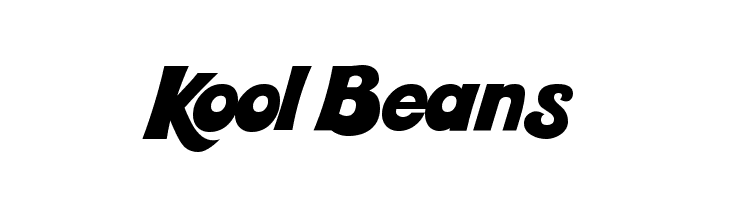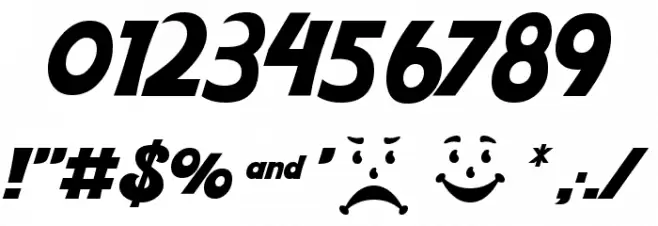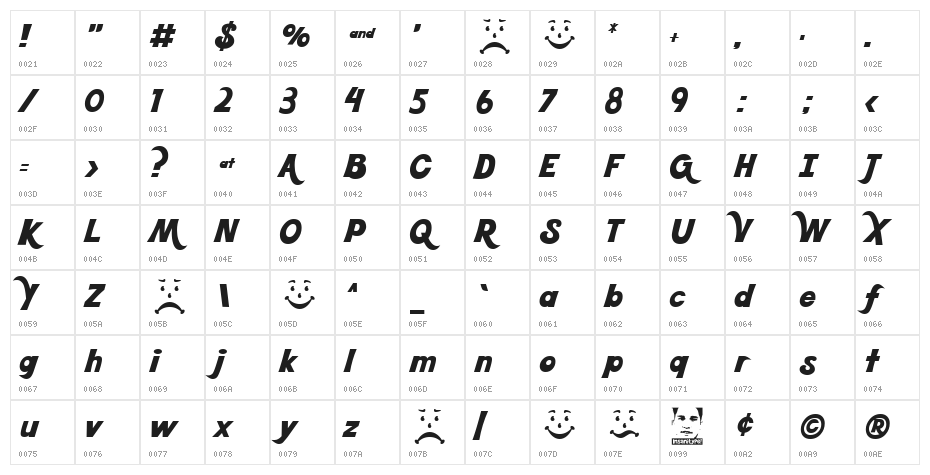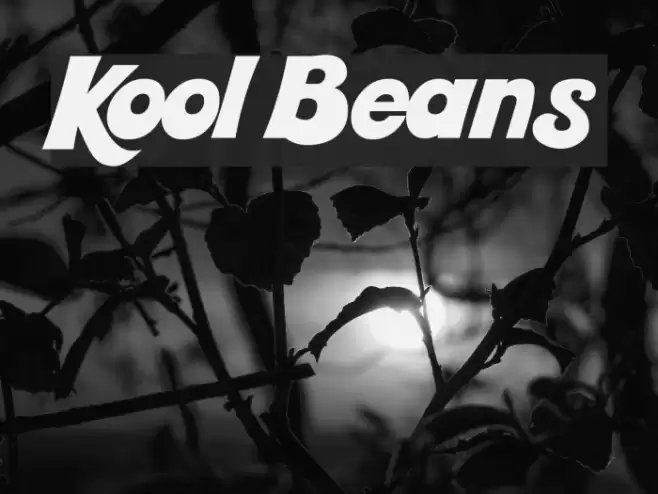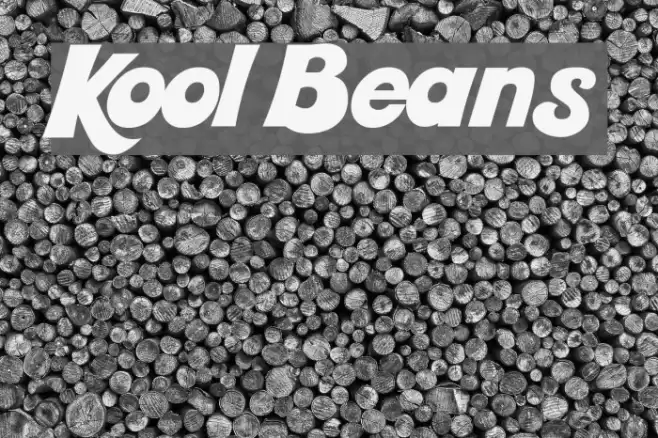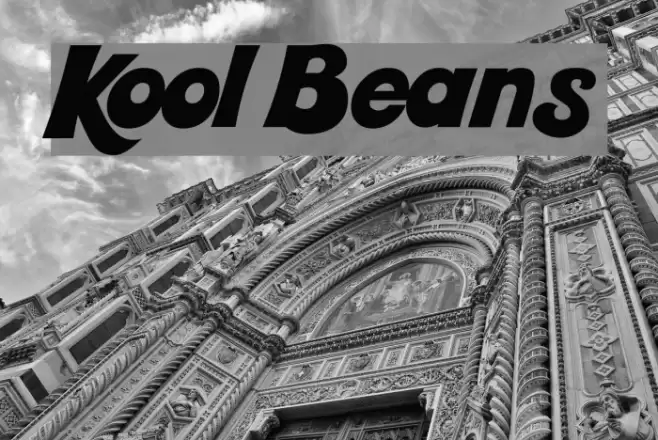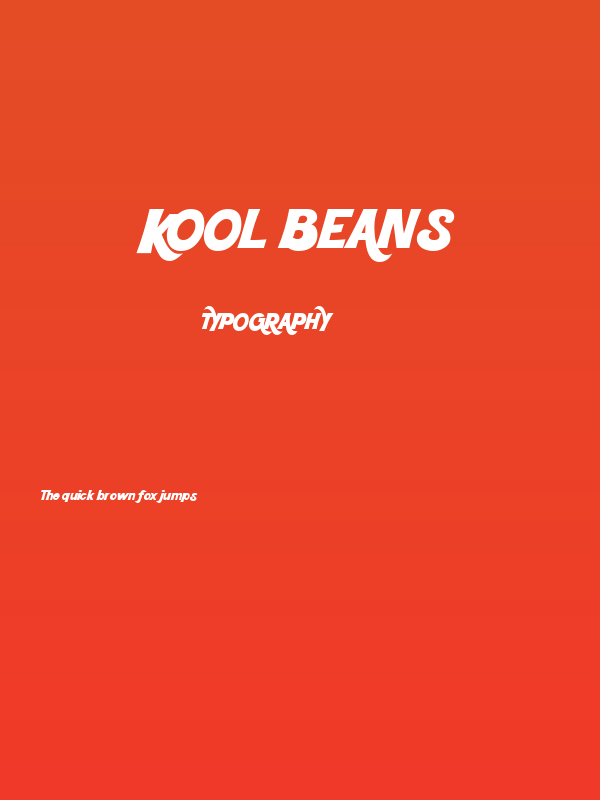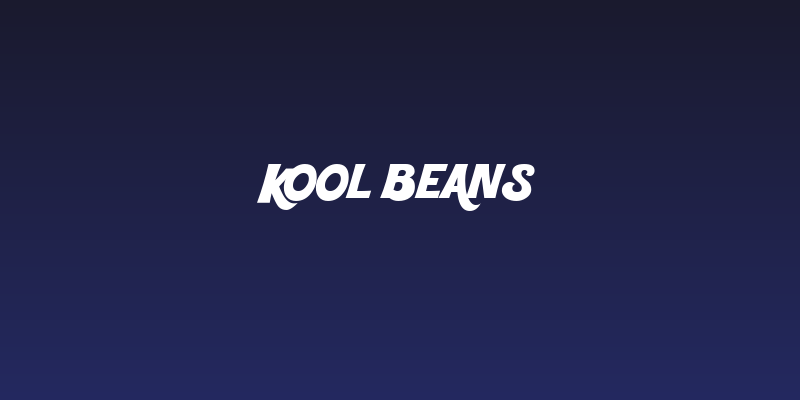
Kool Beans Font
Kool Beans Description
This font features a bold and dynamic style with a strong emphasis on movement and flair. The uppercase letters exhibit a unique curvature, particularly noticeable in characters like 'K' and 'M', which adds a sense of playfulness and energy. The lowercase letters maintain a consistent boldness, with some characters like 's' and 't' showing distinctive swooping tails. Numbers are equally bold, ensuring readability and impact. Special characters are creatively designed, with some incorporating playful elements, making them stand out. Overall, this font combines a sense of modernity with a touch of retro flair, making it versatile for various creative applications.
| Overall Style | Modern, Retro |
| Proposed Projects | Ideal for branding, advertising, posters, and any project requiring a bold, eye-catching typeface. |